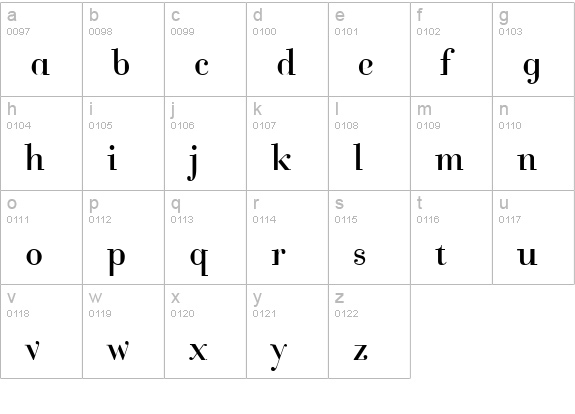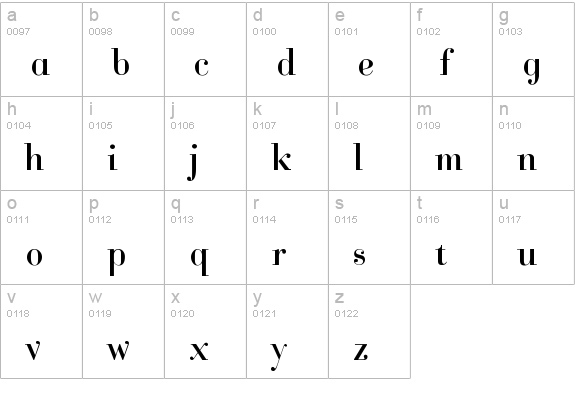
Cantabile Font Details
Cantabile font is a beautiful and elegant typeface that exudes sophistication and charm. With its graceful curves and stylish letterforms, Cantabile is perfect for adding a touch of class to any project. Whether you're designing a wedding invitation, creating a logo, or crafting a stylish brochure, Cantabile font will elevate your design to the next level. What makes Cantabile font even more appealing is that it is completely free to download at FontsMarket.com. This means you can add this exquisite font to your collection without any cost, making it a valuable addition to your design toolkit. Don't miss out on the opportunity to enhance your projects with the timeless beauty of Cantabile font - download it for free today!